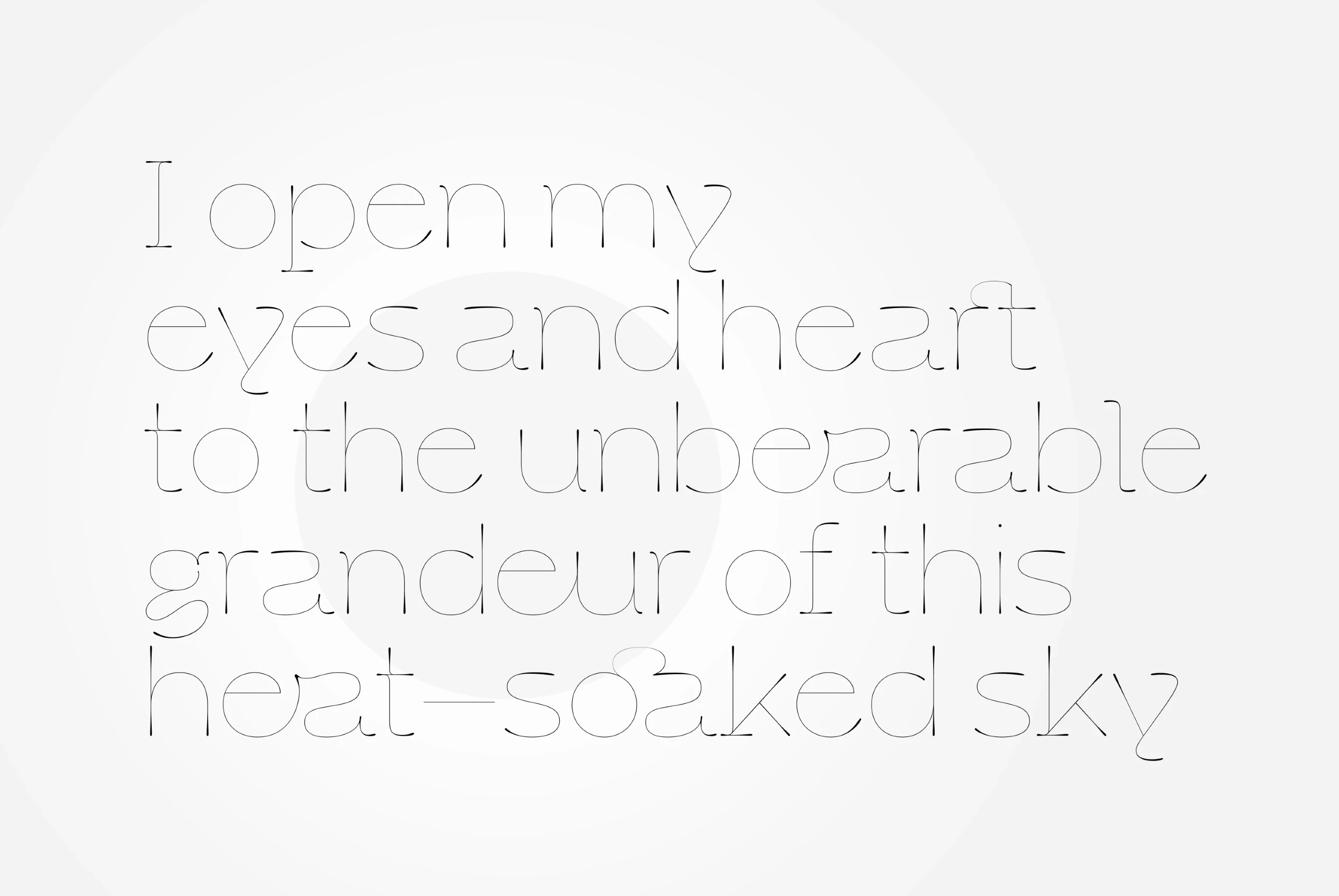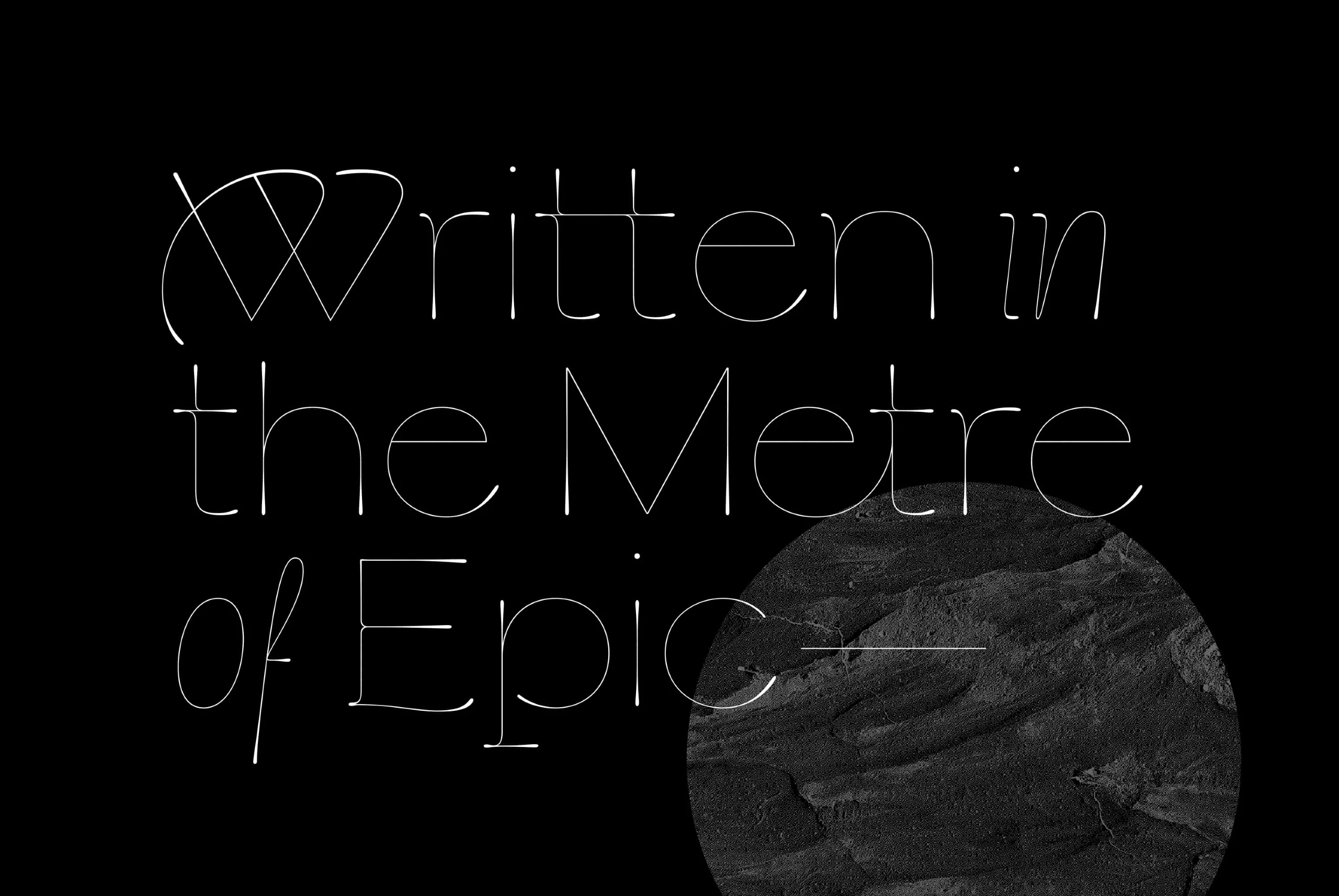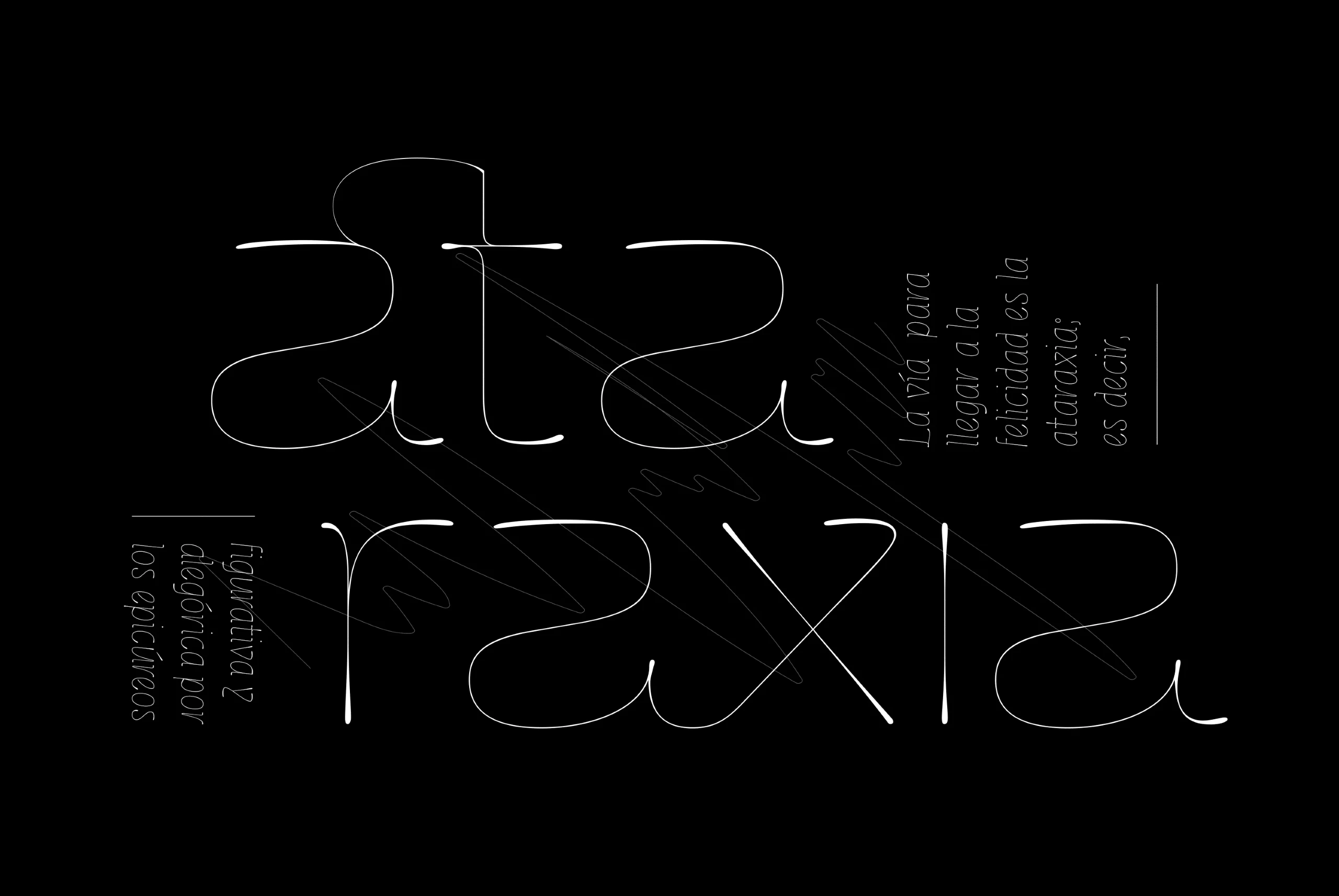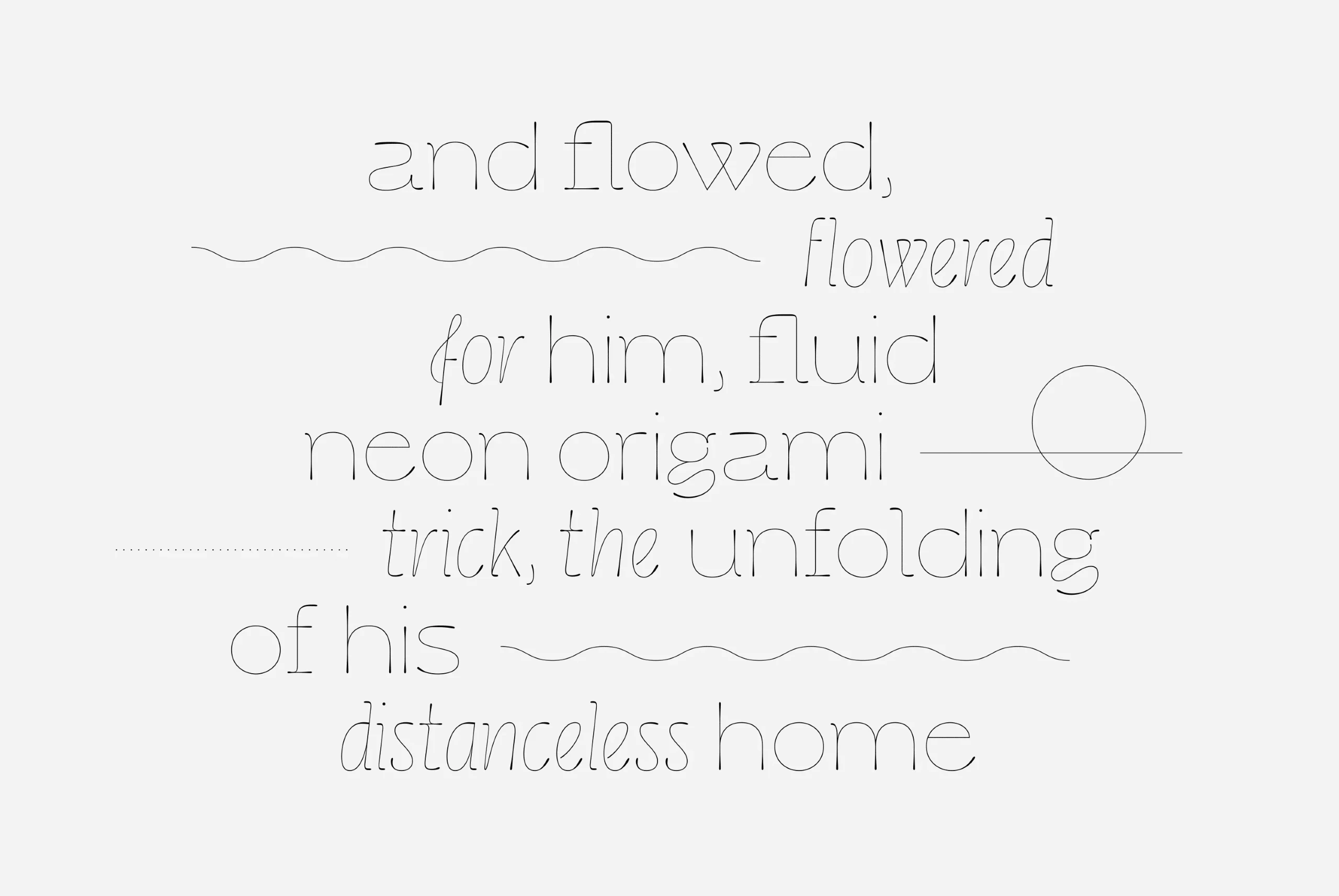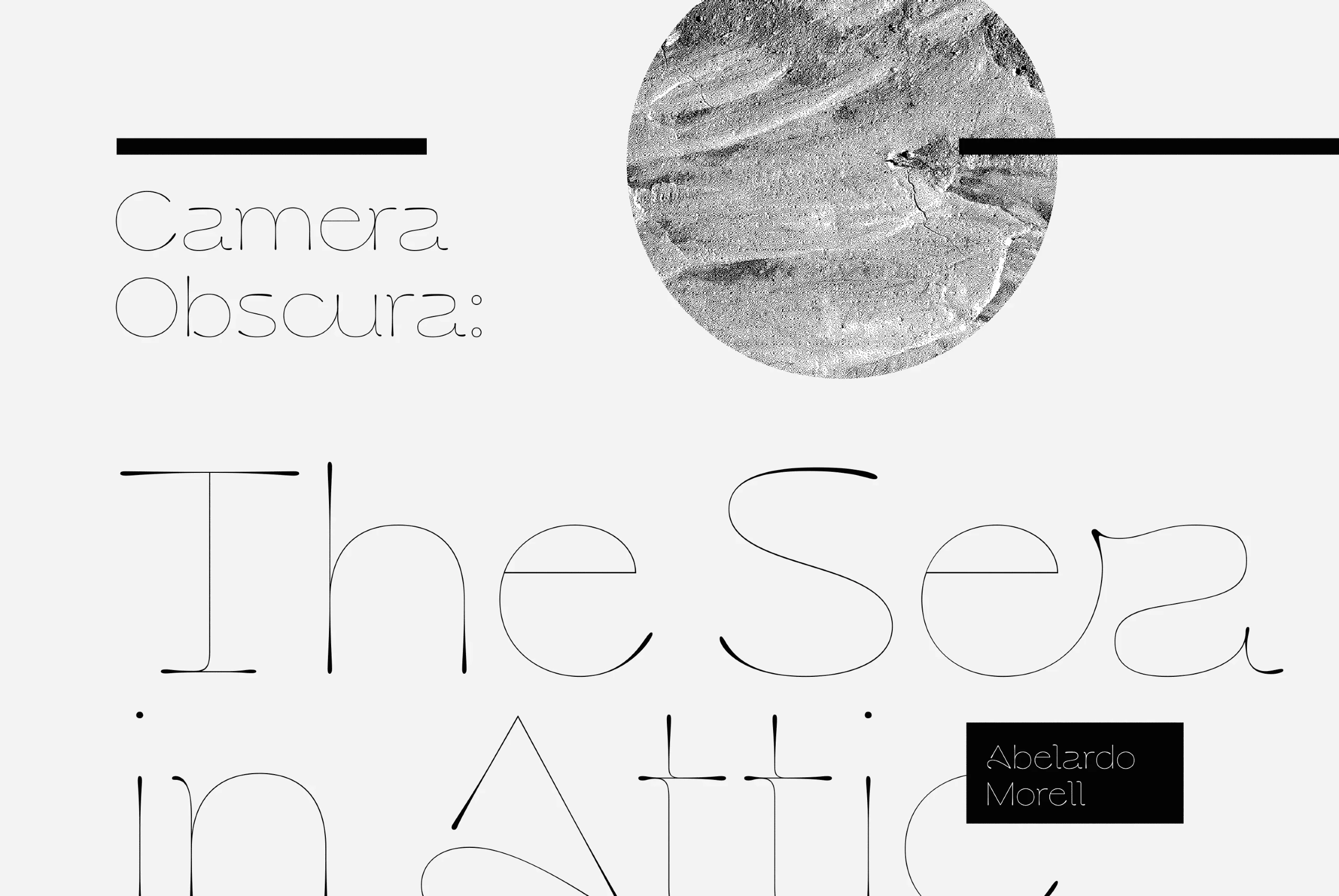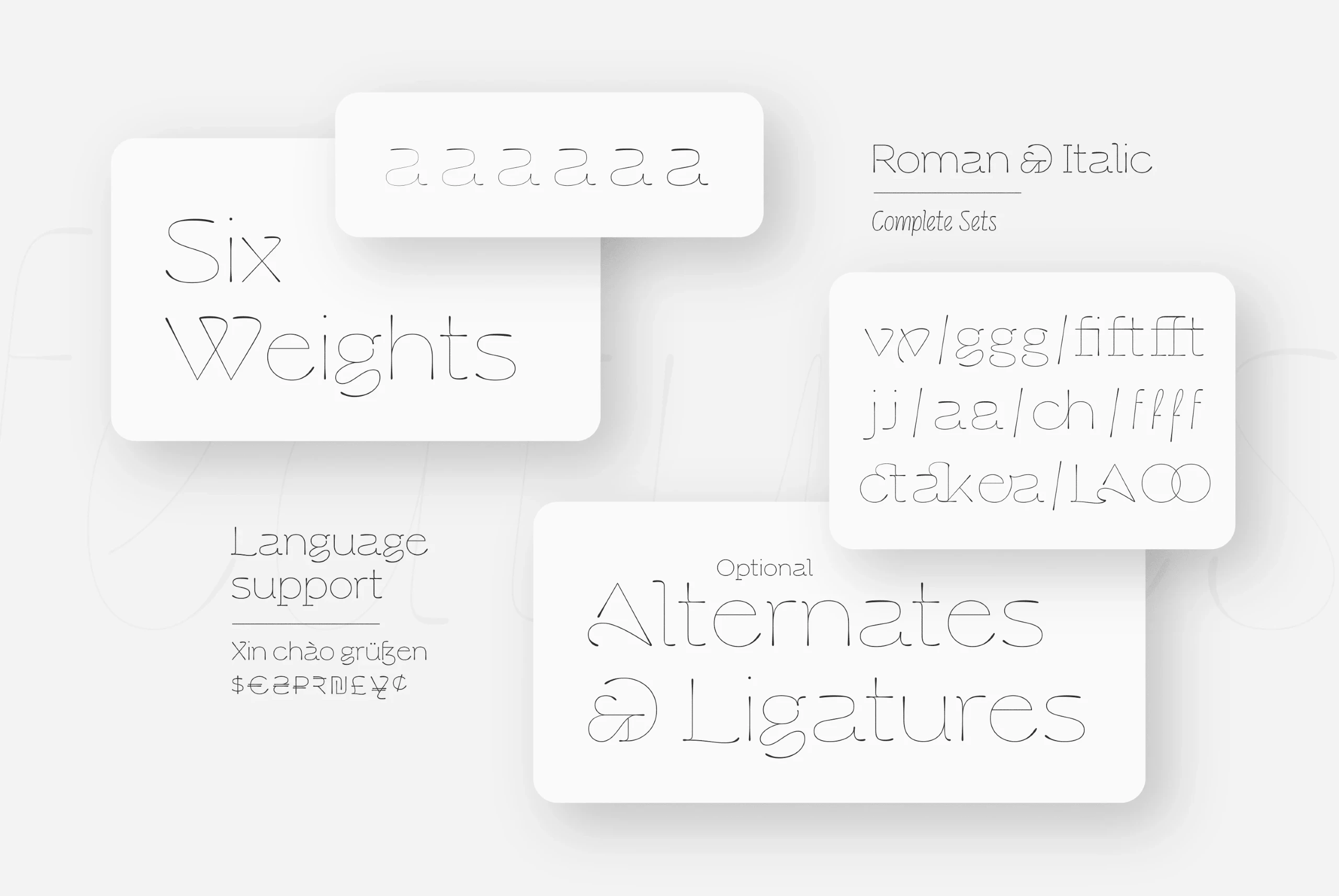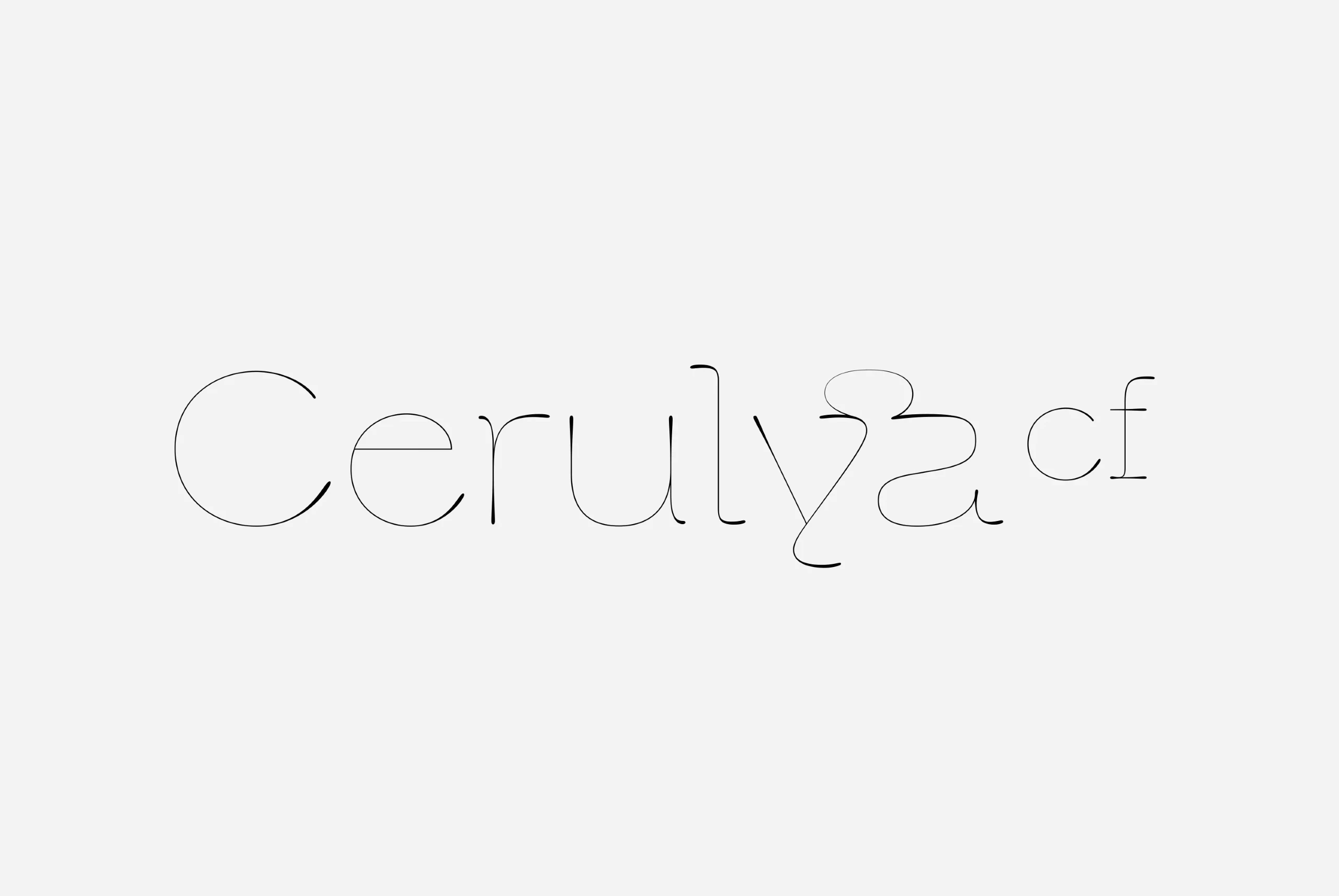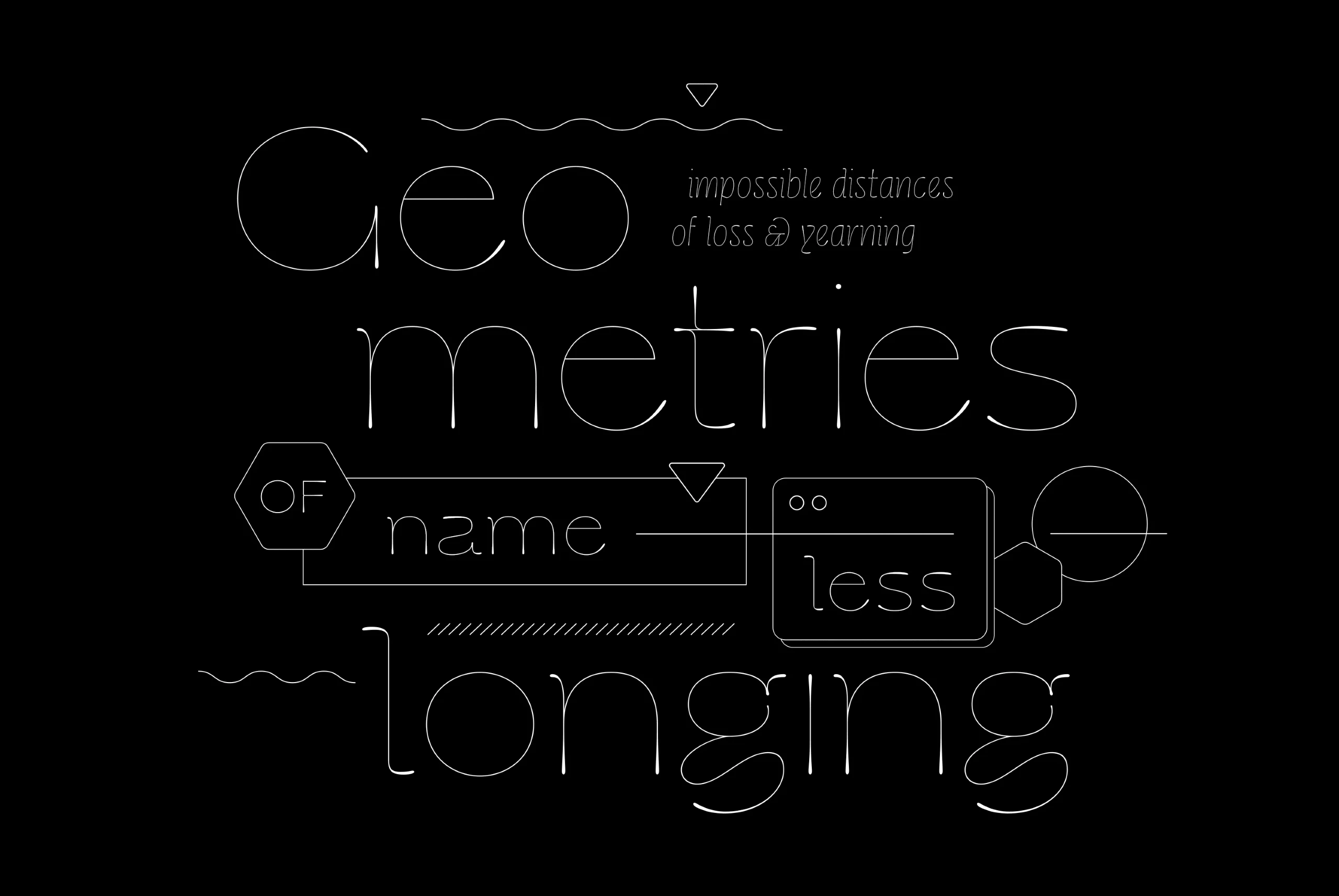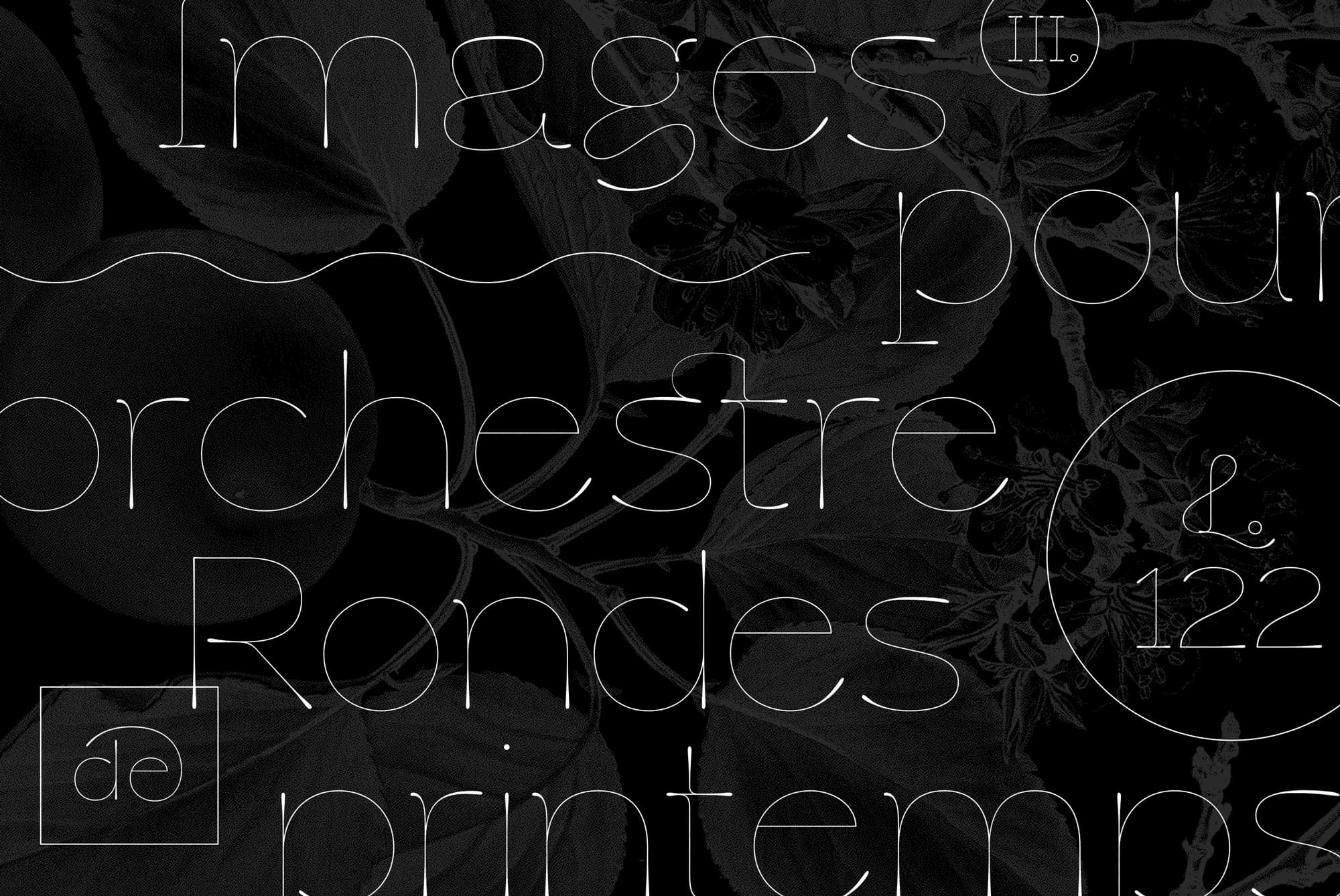
Cerulya
Airy and delicate, Cerulya CF is a striking display typeface brimming with movement and grace. It was created to shine brightest at large sizes — perfect for logos, posters, and other headlines. Its unique semi-serif design has rounded teardrop terminals and includes ligatures, swashes, and alternates galore. Cerulya pairs well with a contrasting, simple geometric sans like Greycliff CF. Try dramatically different point sizes between the two for maximum effect.
six Weights in Latin & Vietnamese • Ligatures • Stylistic Sets Script
Language support includes Catalan, Chinese Pinyin, Croatian, Czech, Danish, Dutch, English, Filipino, Finnish, French, Fula, German, Hungarian, Indonesian, Italian, Latvian, Malay, Maltese, Norwegian, Polish, Portuguese, Romanian, Slovak, Slovenian, Spanish, Swedish, Turkish, Vietnamese